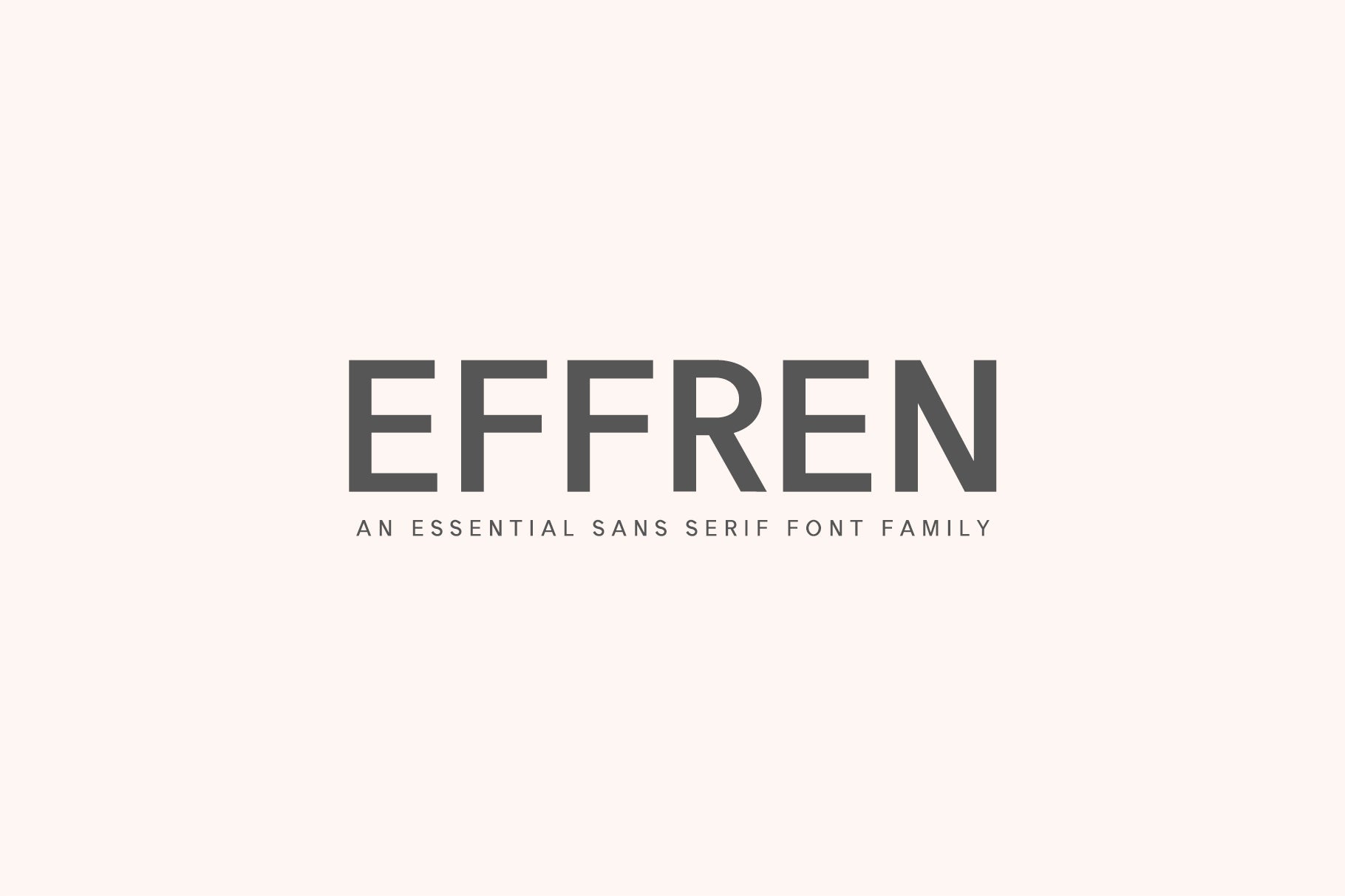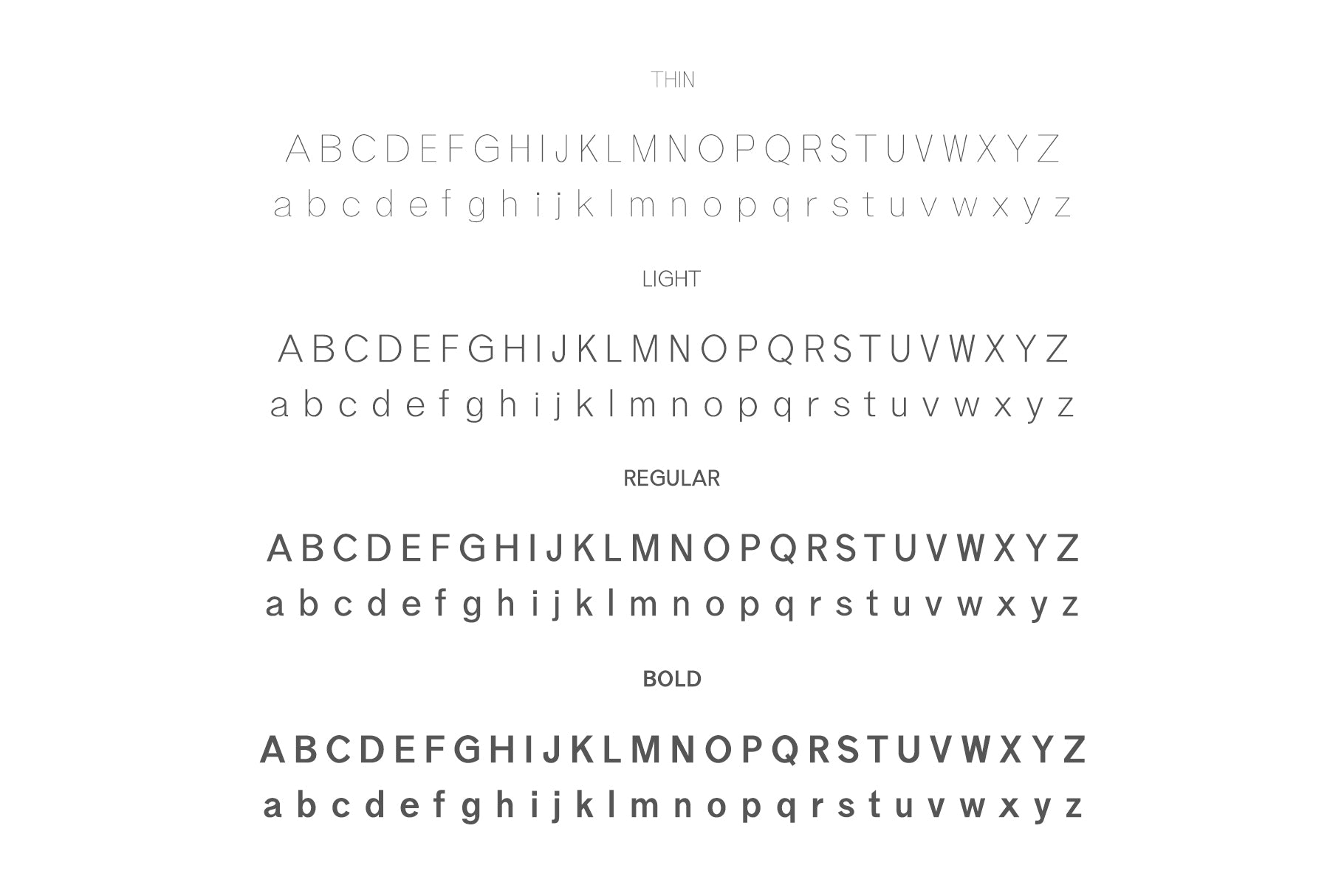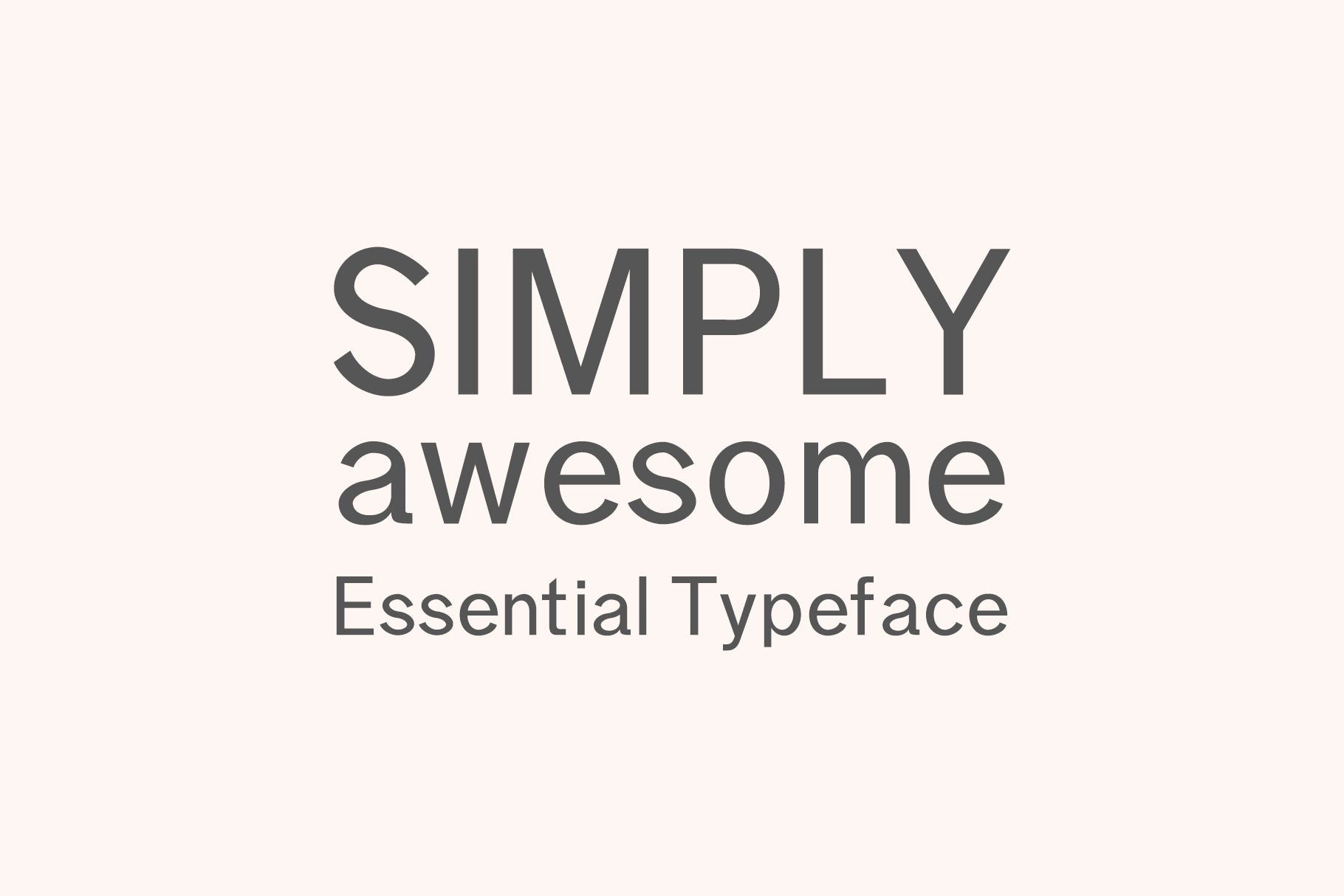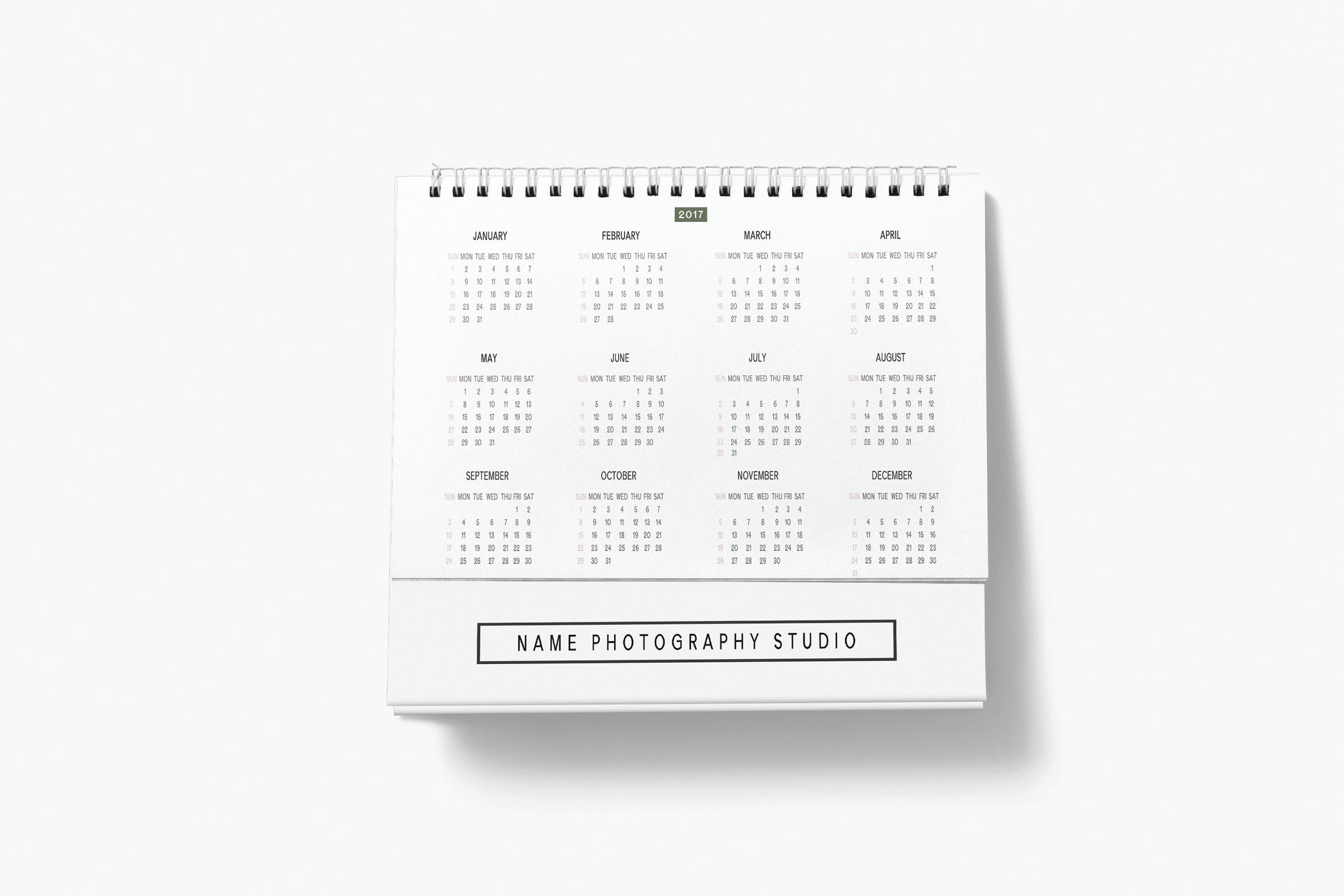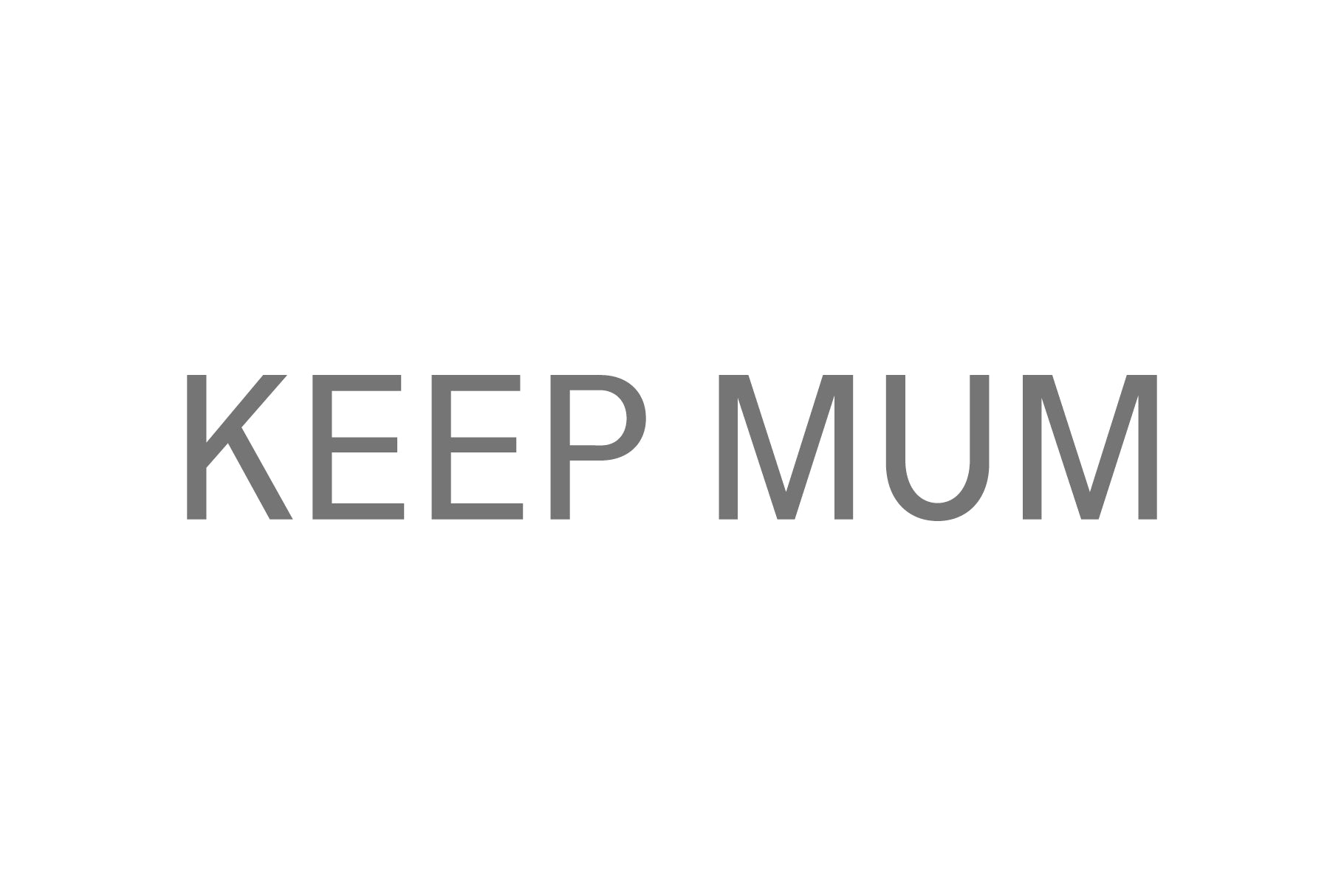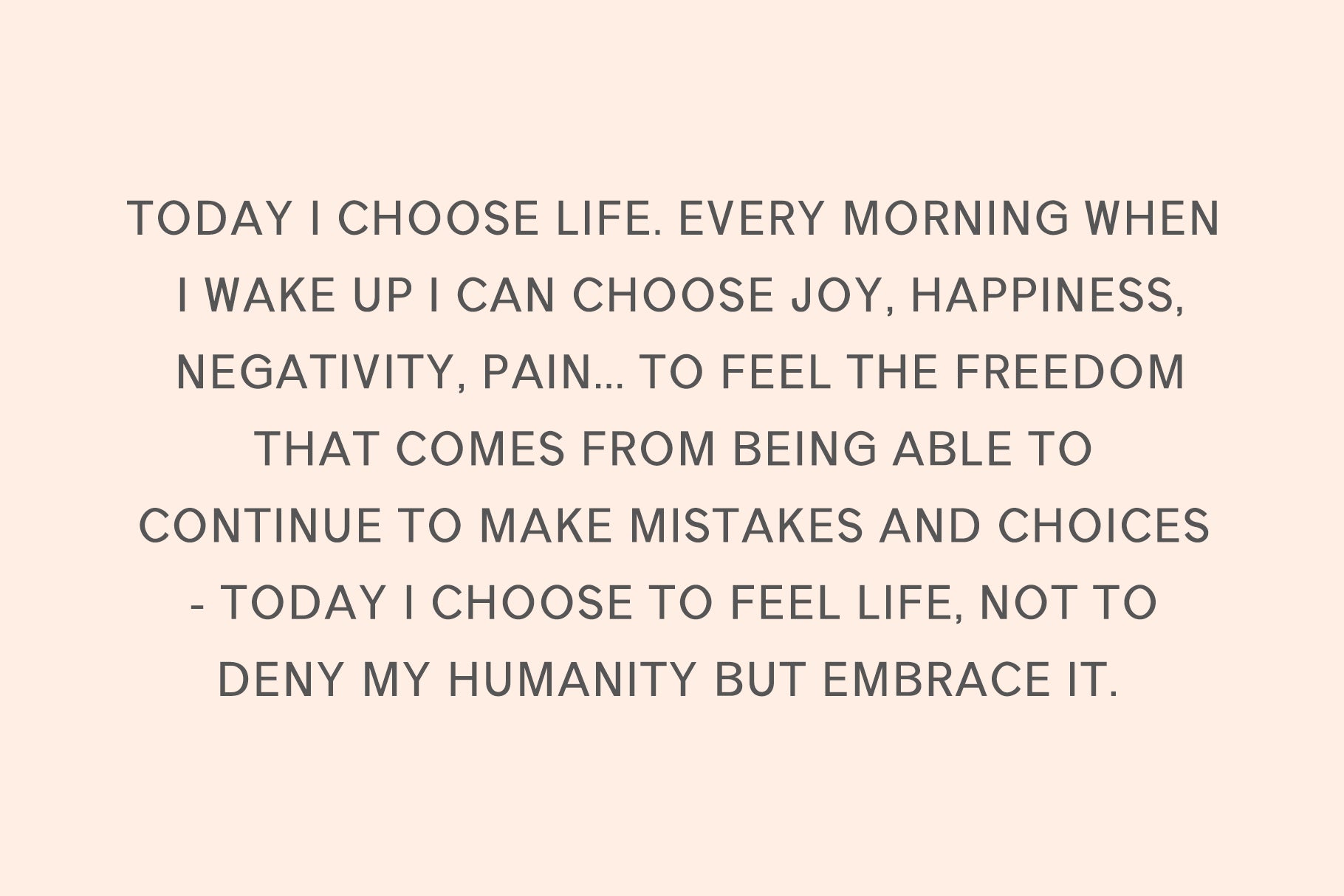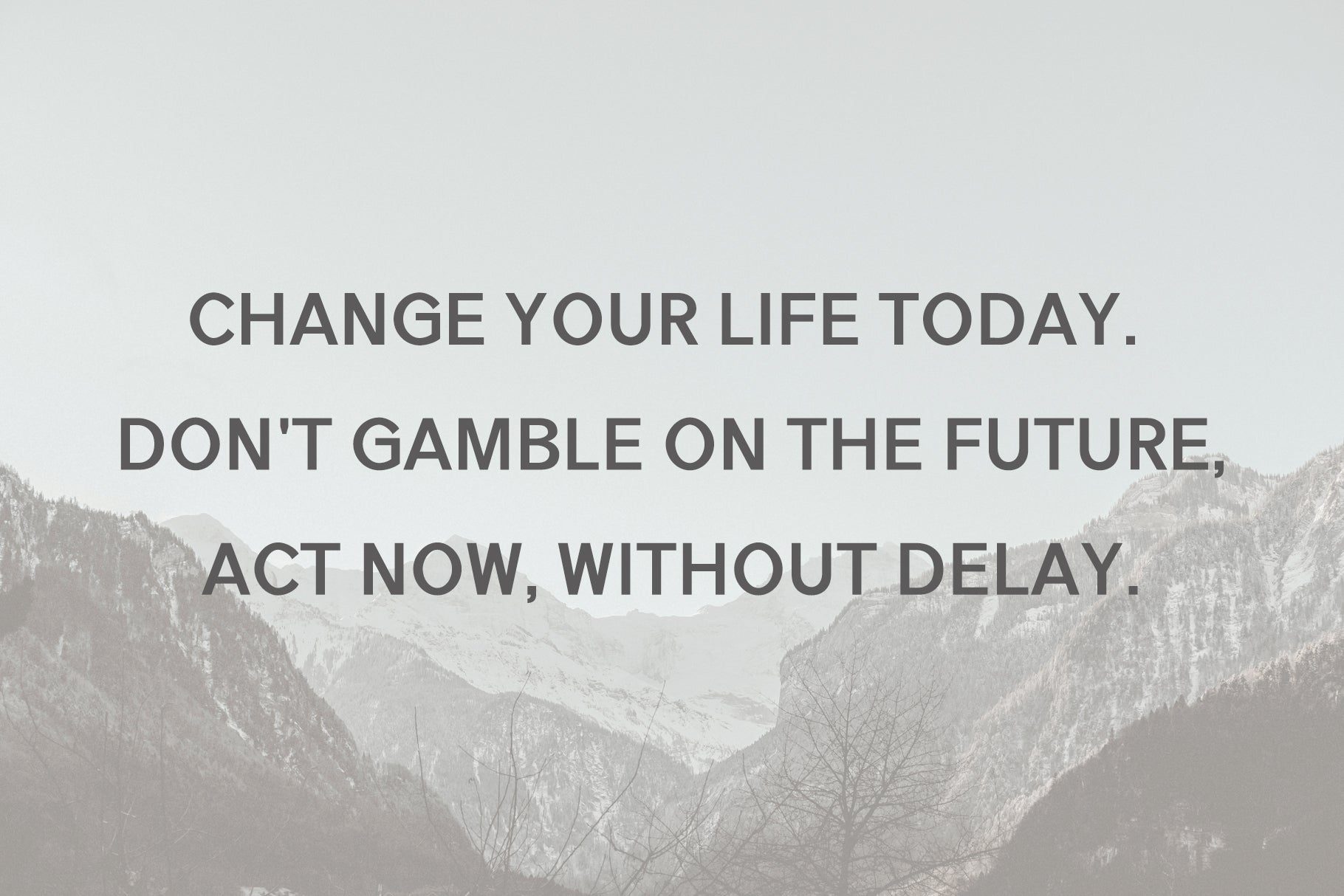
Effren Sans Serif Font Family is a powerful and outstanding sans serif font typeface. It comes with 4 weights. It can be perfect for logos, texts, presentations, posters, magazines, notices, titles, name card, magazine, web layouts, invitations, headers, branding and other any business related. branding, weddings, social media, product design, stationery and advertising.
Font Weight: Regular, Light, Thin and Bold
Uppercase Letters
Lowercase Letters
Number and Punctuation
Multilingual Support